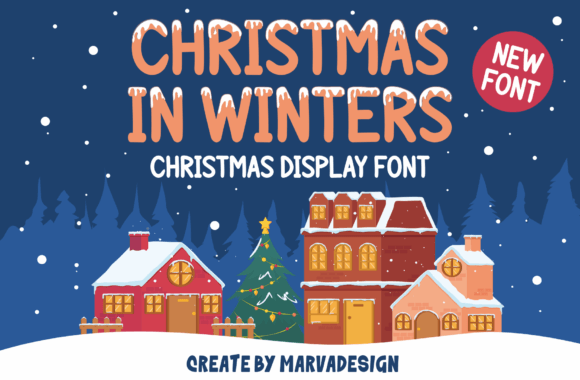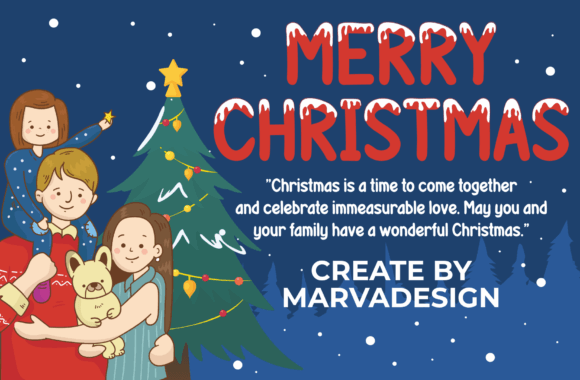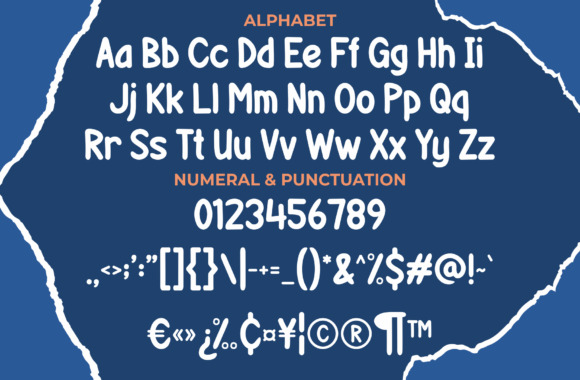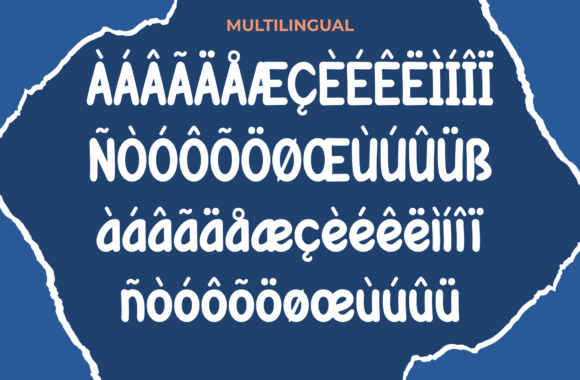
Christmas in Winters Font
About the Christmas in Winters Font
Get ready to be inspired by Christmas in Winters Font, a fresh and dynamic typeface for modern creators. Introducing our new product **Christmas In Winter Font** – A Modern Christmas Font
**Christmas In Winter Font** – A Modern Christmas Font is a bold and authentic display font. The font is suitable for any branding project like logo, Template Design, Product, and many more. outstanding in a wide range of contexts.
Christmas in Winters Font Usage Examples
Christmas in Winters Font Example